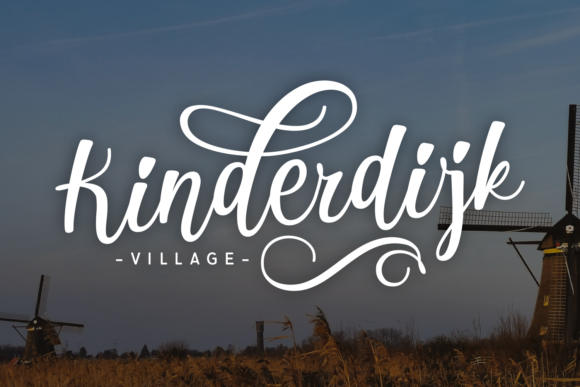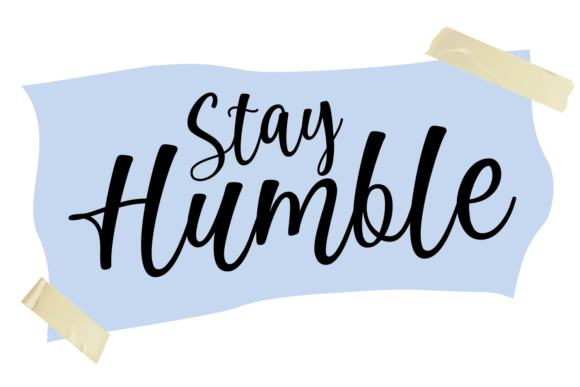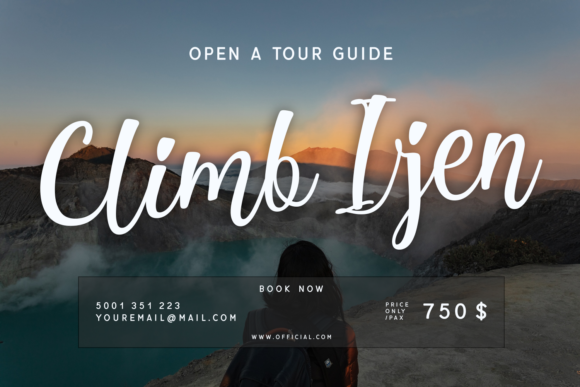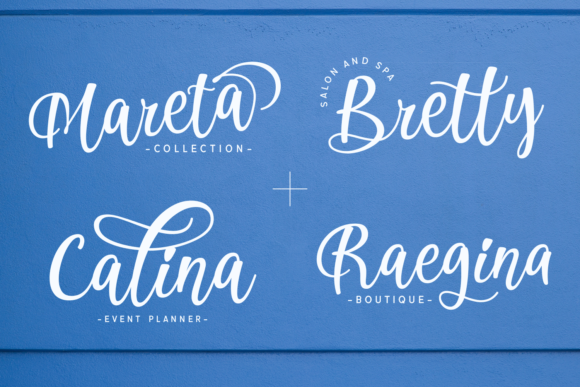
Austalina Font
About Austalina Font
Austalina is a sweet, soft hand-lettered script. The playful rounded characters make it the perfect font for creating stunning crafts. Austalina comes packed with rich swashes, that will allow you to add a decorative touch within seconds.
This font is PUA encoded which means you can access all of the magical glyphs and swashes with ease! It also features a wealth of special features including alternate glyphs and ligatures.